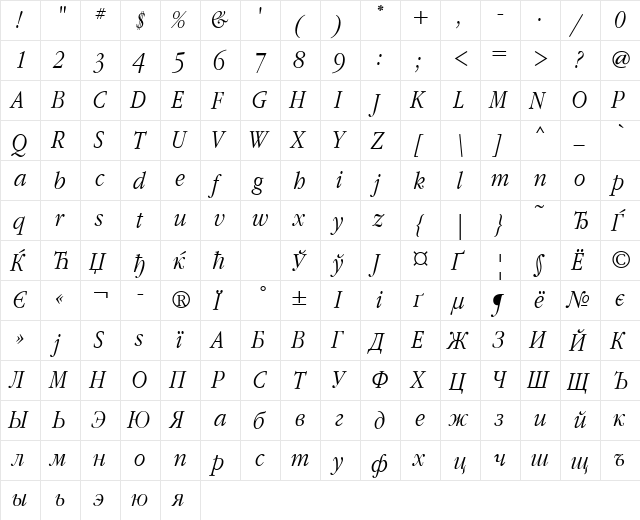
GaramondNarrowCTT Italic Font Preview
Design Context for GaramondNarrowCTT Typeface
GaramondNarrowCTT offers clean, dependable letterforms without strong stylistic allegiance, making it a practical choice for designers who need flexibility. Its italic angle brings a sense of urgency and motion to the letterforms. The condensed width makes it efficient for tight spaces without sacrificing legibility.
Pro Tip: Try GaramondNarrowCTT for annotation and caption copy alongside an upright companion — the contrast in angle creates a dynamic but ordered typographic system.